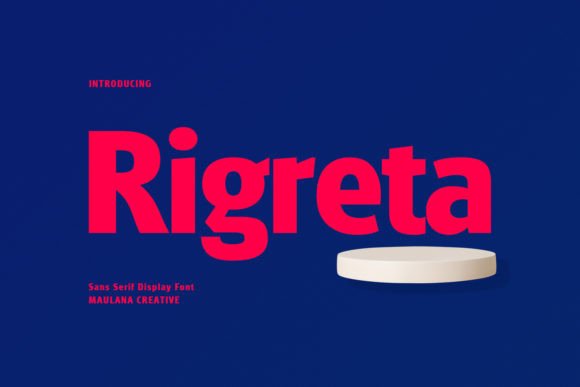
Journey into the realm of typographic brilliance with Rigreta Font, a sans serif masterpiece that exudes boldness and commands attention. This font is a visual symphony, blending clean lines with a touch of playful charm. Crafted by the visionary hands of Maulana Creative, Rigreta is not just a font; it's an expression of creativity and innovation.
Prepare to be captivated by Rigreta's bold strokes and dynamic character. Each letter dances across the screen with a life of its own, forming words that resonate with power and personality. Its carefully designed ligatures and alternates add an element of visual intrigue, making your designs stand out from the crowd.
Rigreta is a versatile chameleon, adapting effortlessly to various design projects. Whether you're creating a striking logo, captivating social media posts, or crafting movie titles that linger in the mind, Rigreta rises to the occasion. Its versatility extends to book titles, short and long texts, and even as a supporting player alongside script or serif fonts.
With Rigreta as your typographic companion, you'll create stunning works of art that leave a lasting impression. Embrace the power of Rigreta and watch your designs transform into masterpieces of visual communication. Dare to be different, dare to be bold, and let Rigreta guide you on your creative journey.